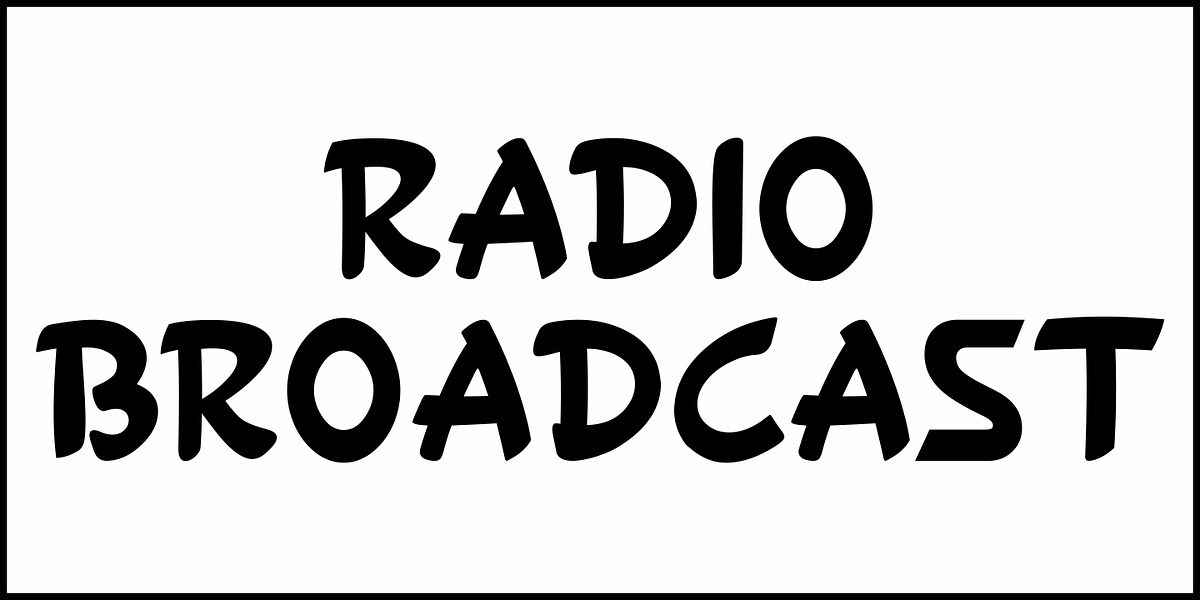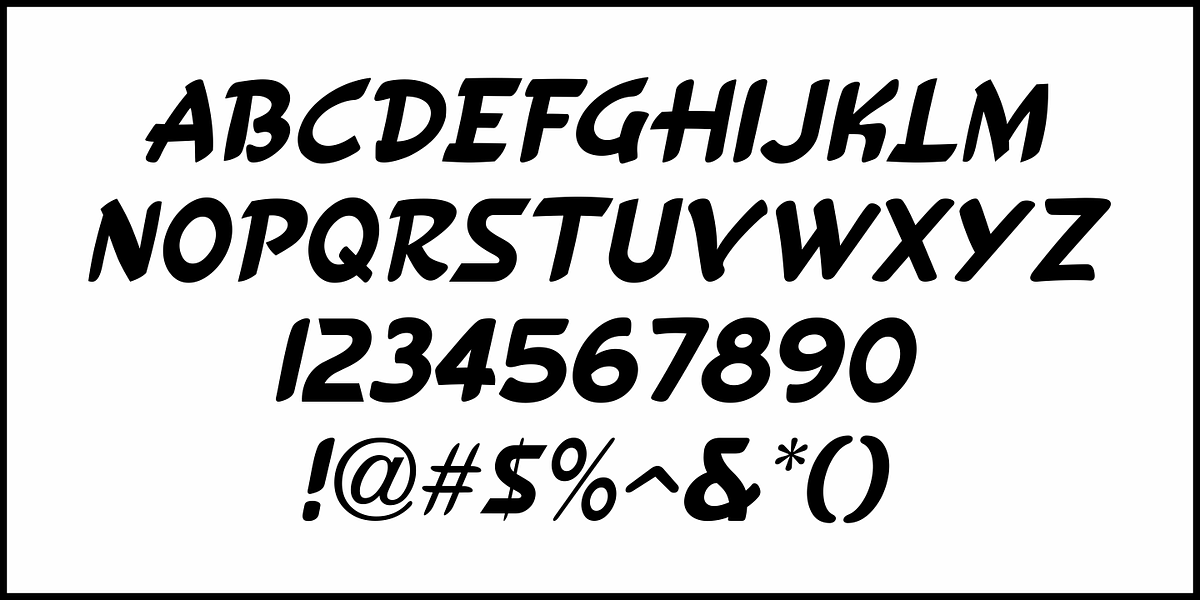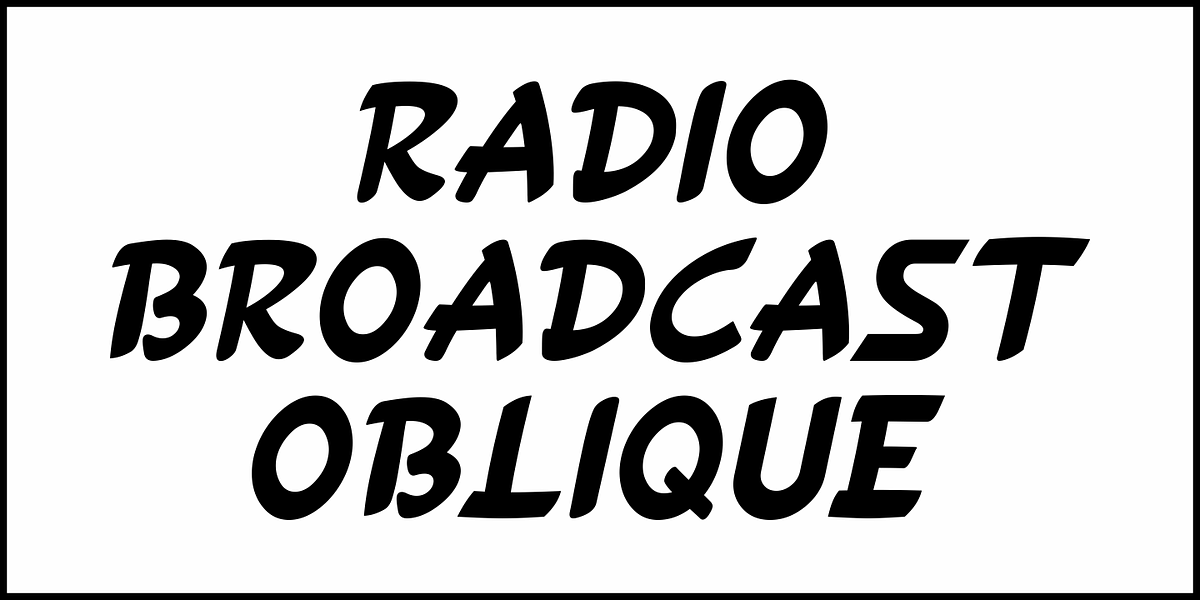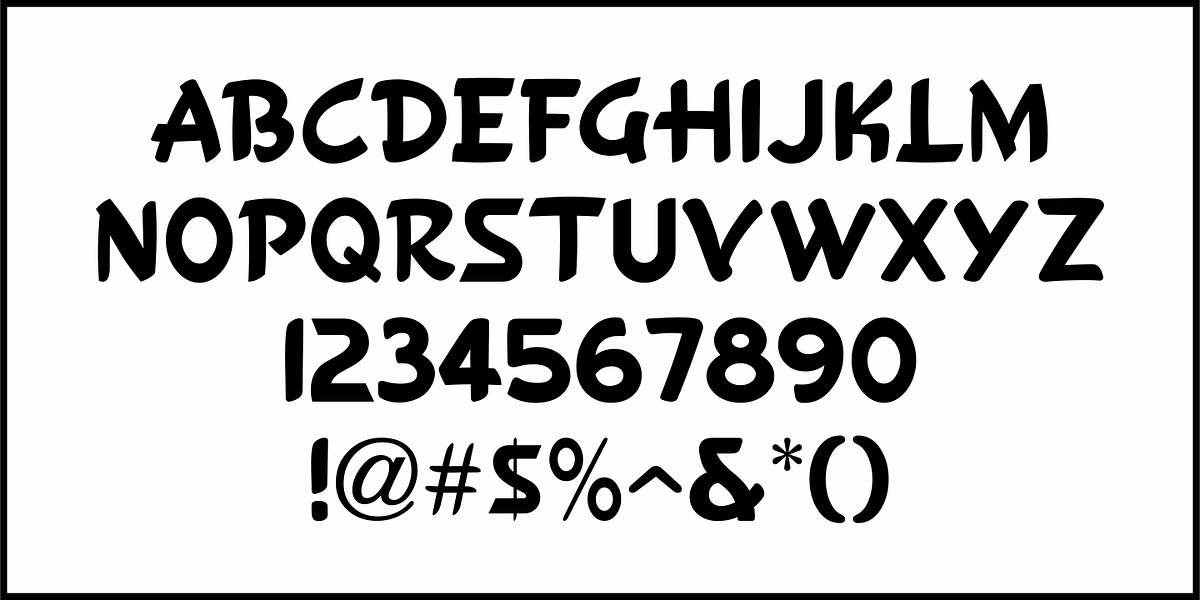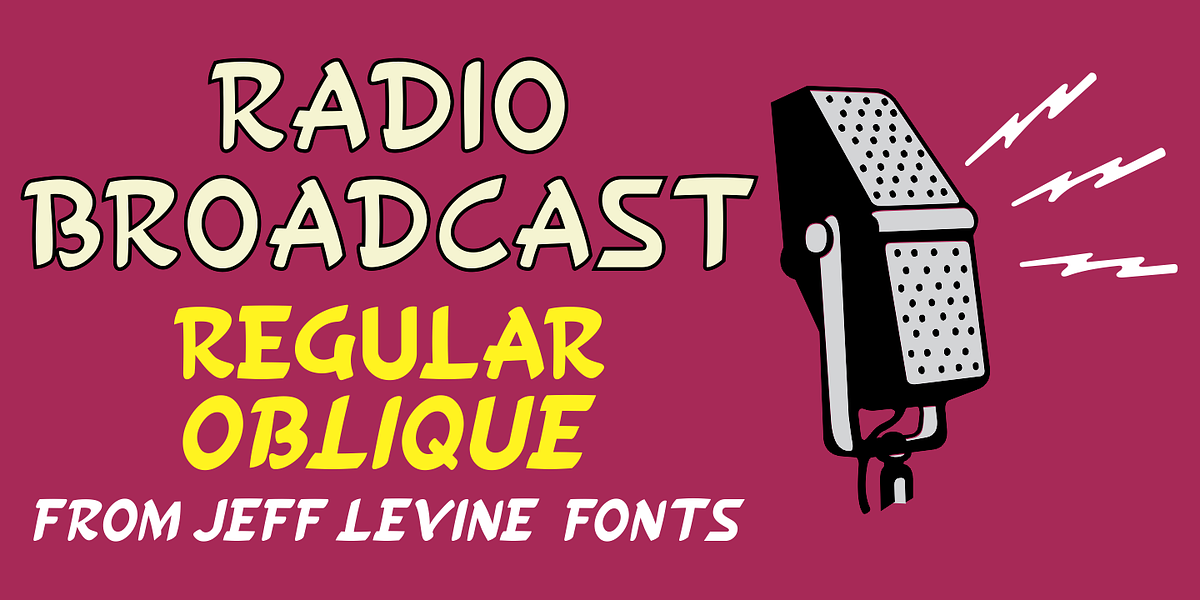
Radio Broadcast JNL
An interesting hand lettered sans serif type style with a “brush stroke” feel was used for various article headlines in the October, 1938 issue of “Radio Stars” magazine.